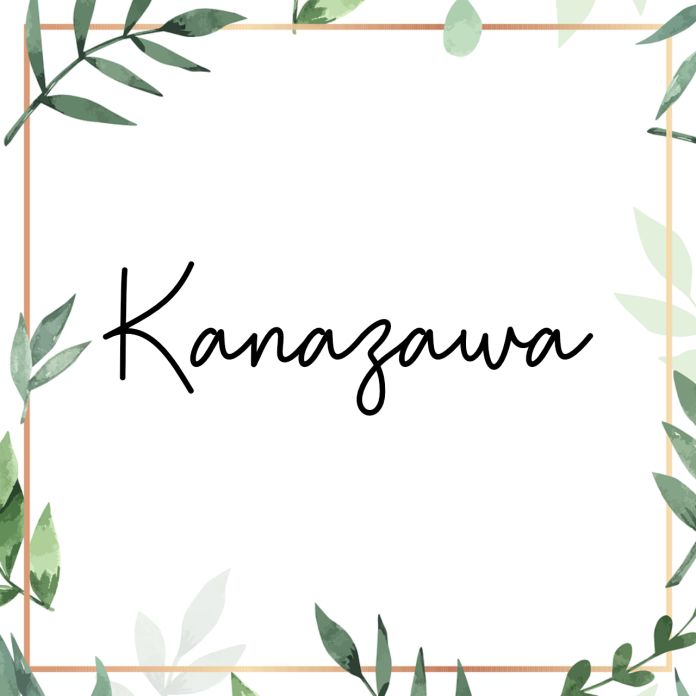
Kanazawa is a chic, refined script font that emanates sophistication and elegance. Its stylish alternates and ligatures make this font the perfect match for any project.